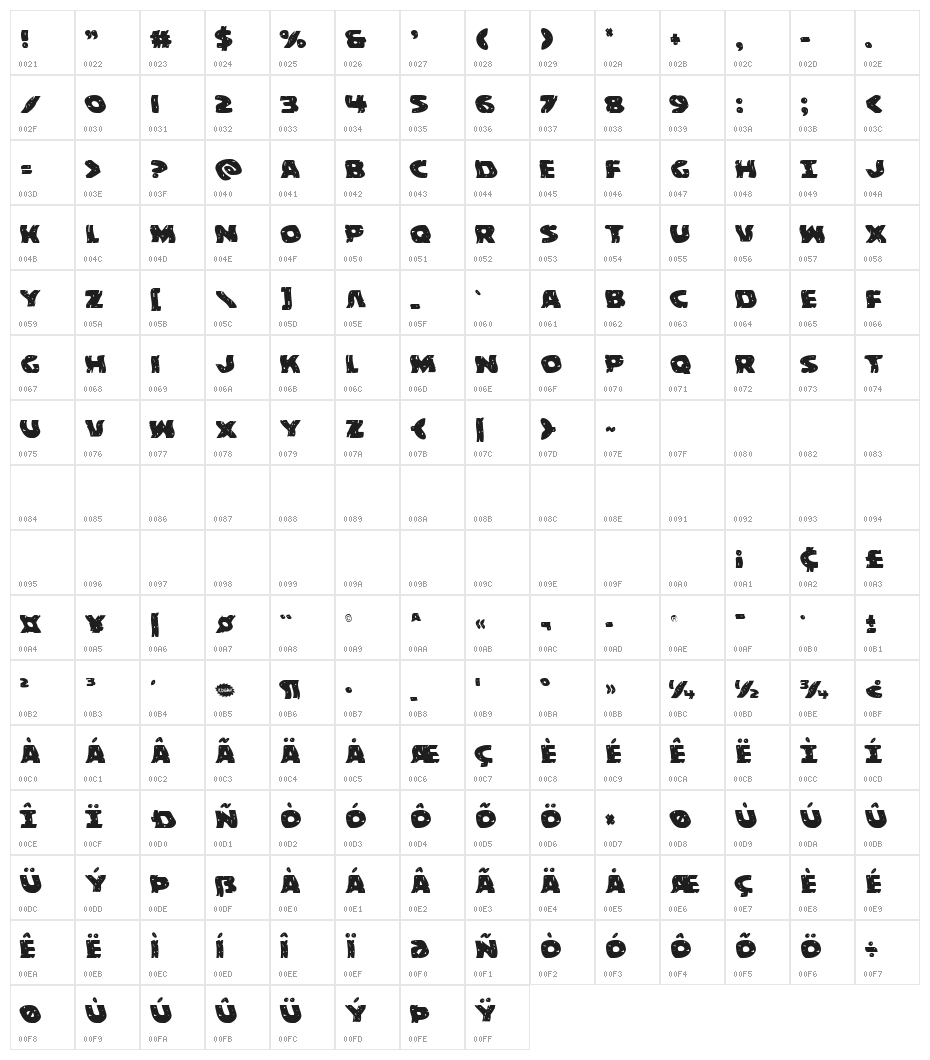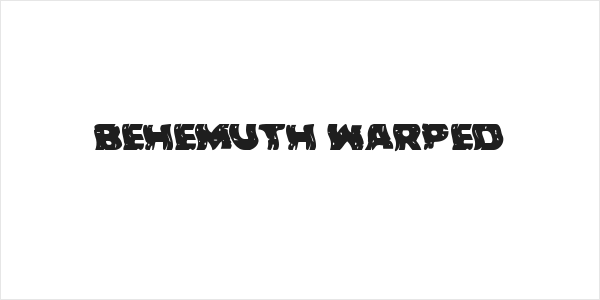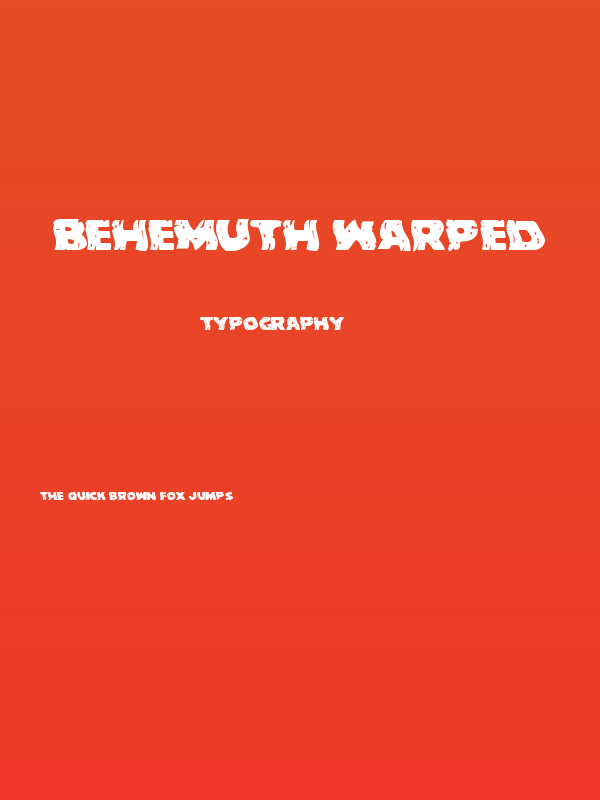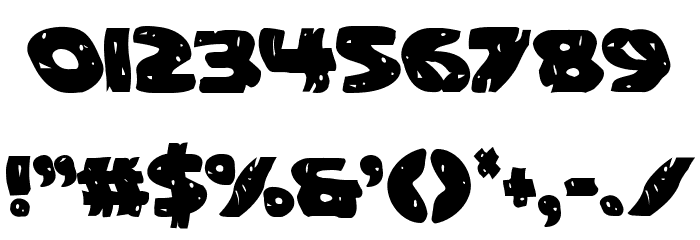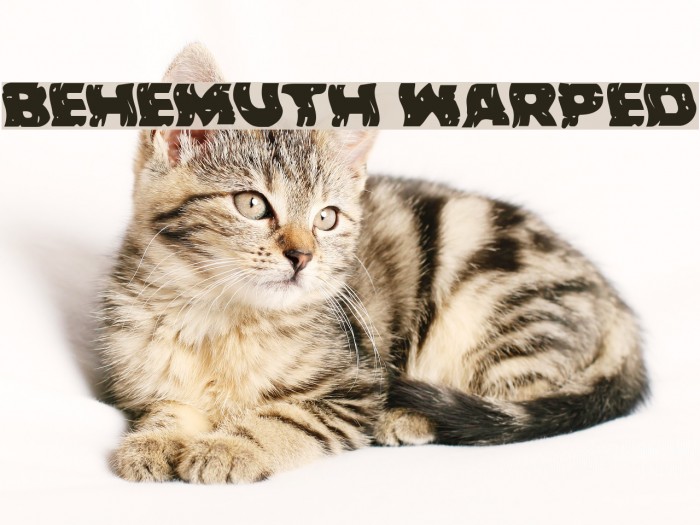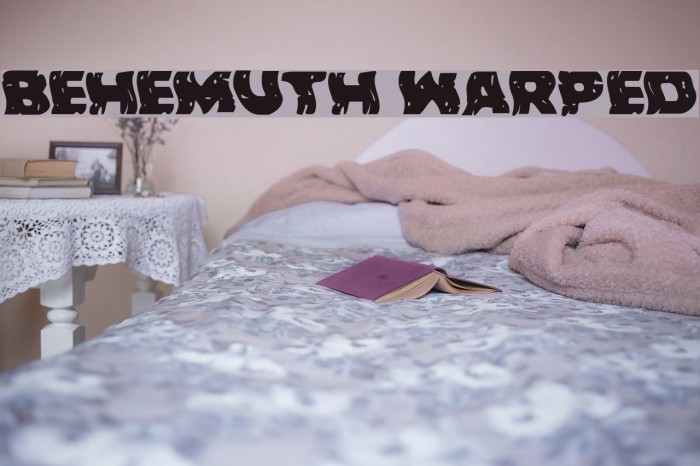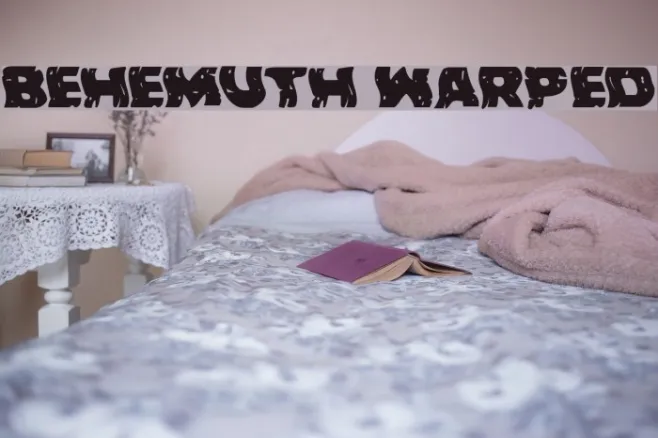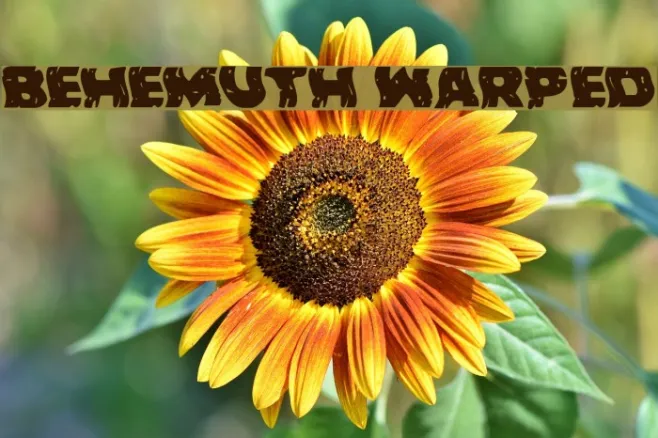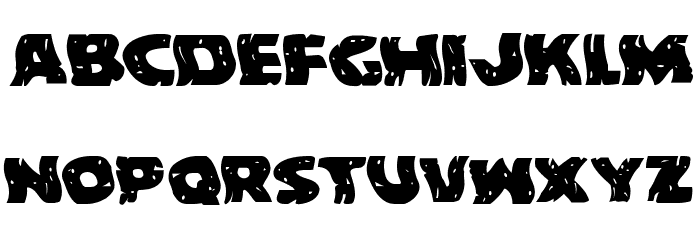
Behemuth Warped Font
Behemuth Warped Description
This font features a bold and dynamic design with a warped, distorted appearance that gives it a unique and eye-catching look. The characters are heavily stylized, with irregular shapes and varying stroke thicknesses, creating a sense of movement and energy. The font's playful and unconventional style makes it stand out, with each letter appearing as if it is melting or dripping, adding to its distinctive character. The overall effect is both chaotic and artistic, making it suitable for projects that require a bold and creative touch.
| Proposed Projects | Ideal for posters, album covers, video game titles, and any creative project that requires a bold, artistic flair. |